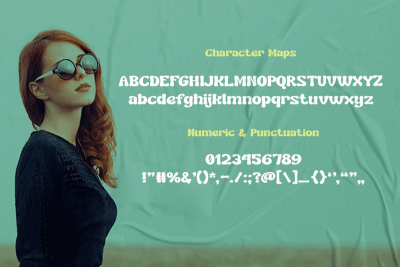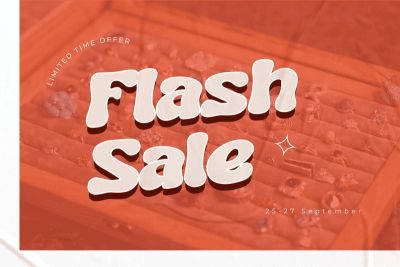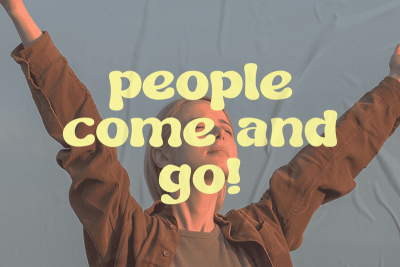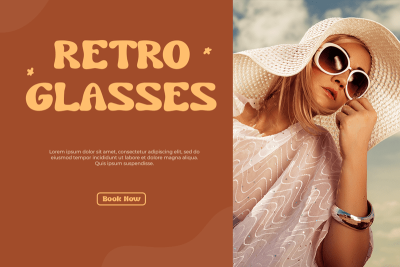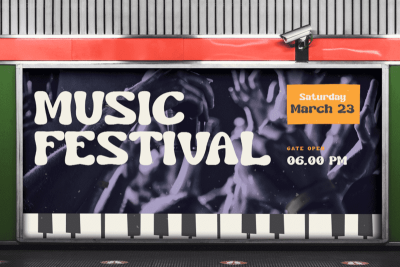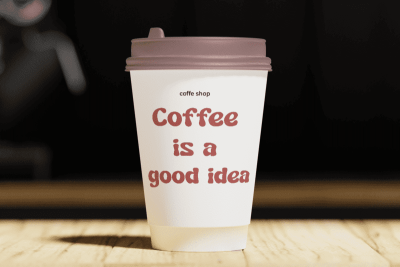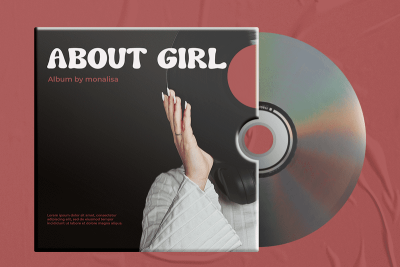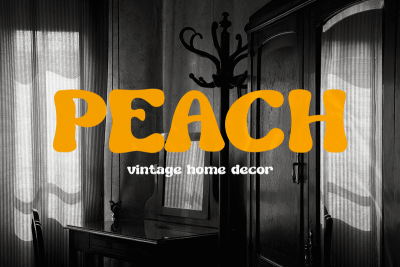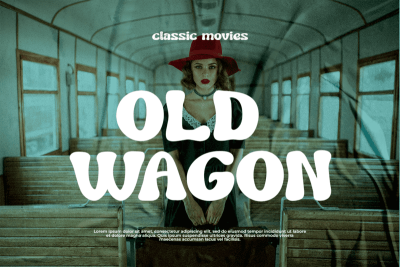
Retro Font CUTBRAY combines nostalgic charm with modern design, making it a bold and distinctive display typeface. Its chunky and playful letterforms evoke the vintage style of the 60s and 70s, bringing a sense of warmth and personality to your designs. The carefully crafted characters balance quirky retro vibes with clear readability, ensuring the font is both stylish and functional. As a result, it works well across various design mediums, from digital to print.
The soft, rounded edges of Retro Font CUTBRAY give it a friendly and approachable tone. At the same time, its modern twist ensures it remains relevant in todayโs design trends. Whether youโre creating posters, branding materials, packaging, or social media graphics, this font commands attention with its bold, eye-catching appeal. Additionally, CUTBRAYโs unique personality ensures your project stands out while forming a strong emotional connection with your audience.
Furthermore, the fontโs versatile nature allows it to complement a variety of design themes. Its retro vibe pairs perfectly with bright, vibrant color palettes, while it also works seamlessly in more subdued and minimalist designs. With Retro Font CUTBRAY, you can elevate your creative projects and give them a timeless yet contemporary feel.
Retro Font CUTBRAYย Who Itโs For
Retro Font CUTBRAY is ideal for graphic designers, branding specialists, and creatives who want to incorporate vintage aesthetics into their work. Itโs especially suited for projects in the fashion, entertainment, and lifestyle industries, where retro-inspired elements resonate strongly with audiences.
Small business owners can also use Retro Font CUTBRAY to establish a unique and memorable brand identity. It works perfectly for boutique shops, cafes, or handmade product lines. By using this font, businesses can communicate a warm, nostalgic, and personal feel to their customers.
Social media influencers and digital marketers will find Retro Font CUTBRAY particularly useful. Its bold visuals help create attention-grabbing graphics and enhance retro-themed campaigns. For example, Instagram posts, promotional banners, or YouTube thumbnails can achieve a professional and unique look with this font.
Additionally, content creators and educators can use CUTBRAY to make their materials more engaging. Whether youโre designing themed presentations, worksheets, or e-books, the fontโs playful style keeps audiences interested while ensuring your message is visually appealing.
In conclusion, CUTBRAY is a must-have for both professional designers and hobbyists. Its bold, quirky, and versatile design empowers you to bring your creative vision to life. Whether you want a nostalgic vibe or a modern twist, this font ensures your projects stand out every time.